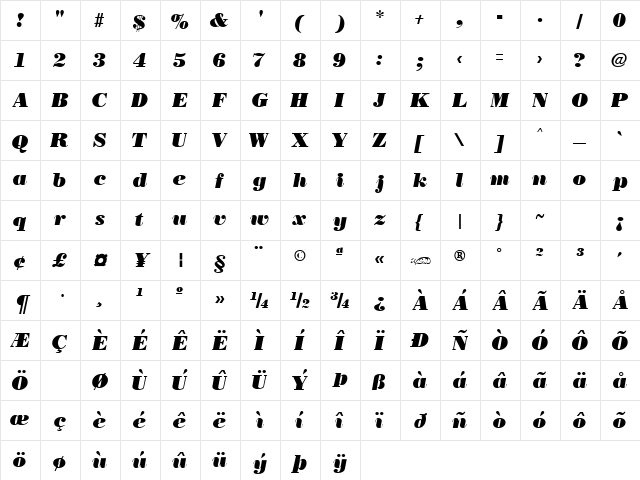
BostonBlack kursiv
Design Context for BostonBlack Typeface
BostonBlack offers clean, dependable letterforms without strong stylistic allegiance, making it a practical choice for designers who need flexibility. Its italic angle brings a sense of urgency and motion to the letterforms.
Pro Tip: Use BostonBlack for emphasis, pull quotes, and subheadings where its slanted energy can add rhythm to the layout.